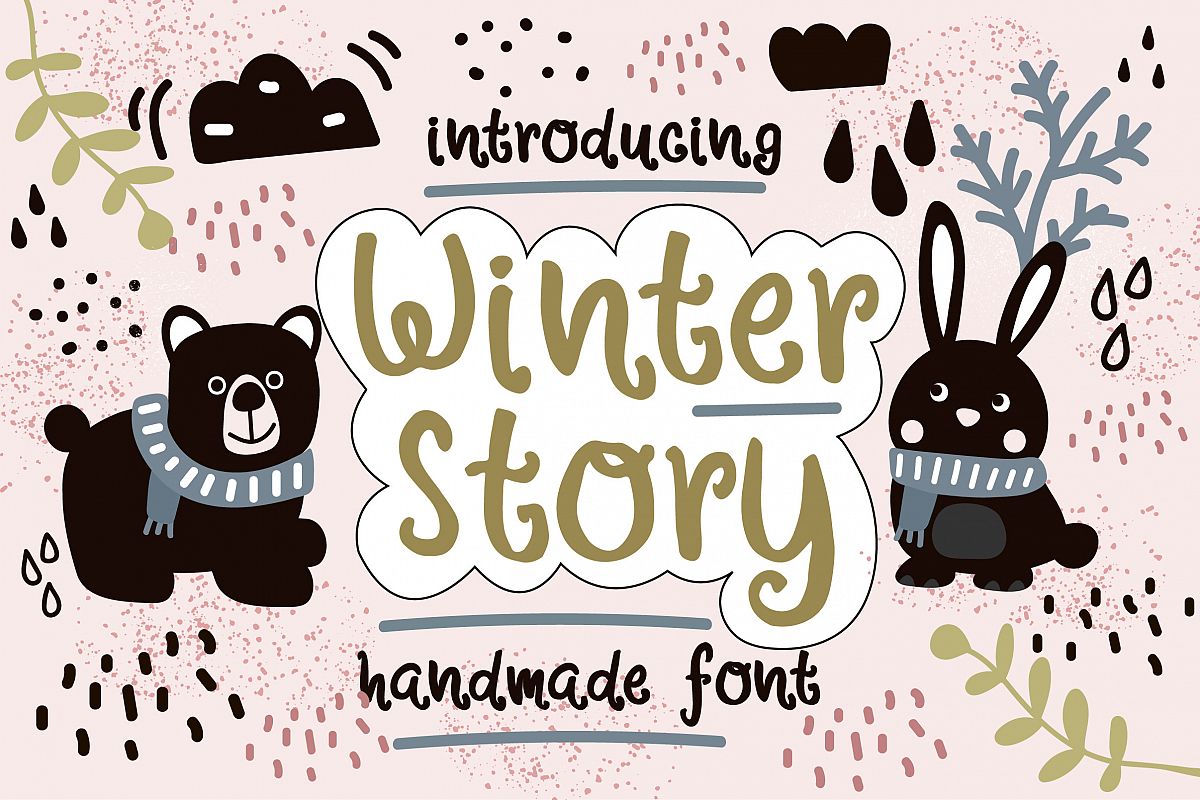
Winter Story
This is Winter Story, a handmade whimsical font. Design your post card,poster,t-shirt,books,stickers with this cute efffect font!
This font also come out with cute illustrations as bonus.